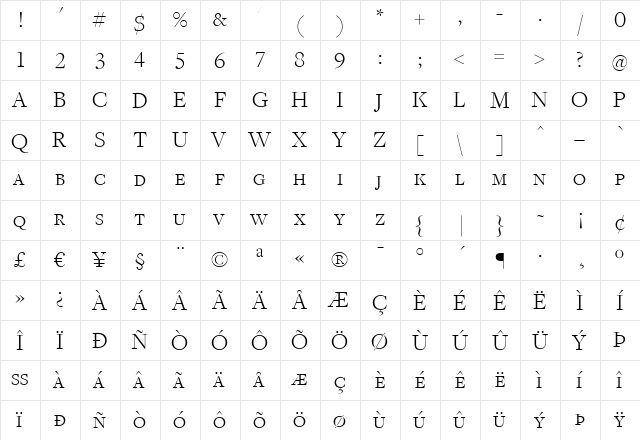
FreightDispLightSC Regular
| Foundry | Joshua Darden & Phil's Fonts, Inc |
| Designer | Joshua Darden |
Design Context for FreightDispLightSC Typeface
FreightDispLightSC is a composed and adaptable typeface that performs quietly and consistently across a wide range of design contexts. Its slender proportions lend an understated elegance to any composition.